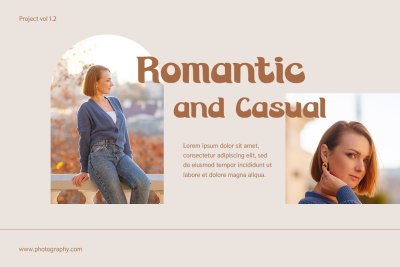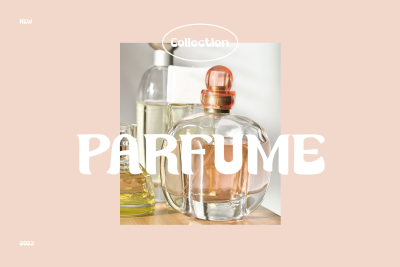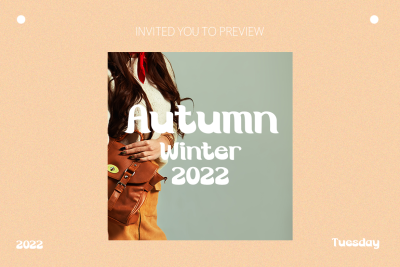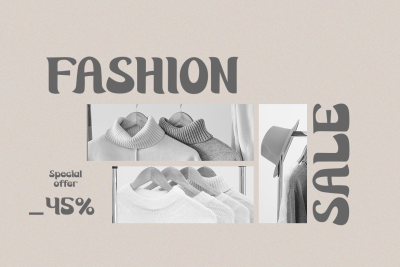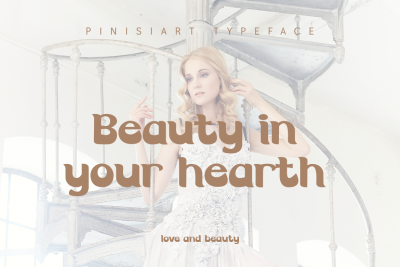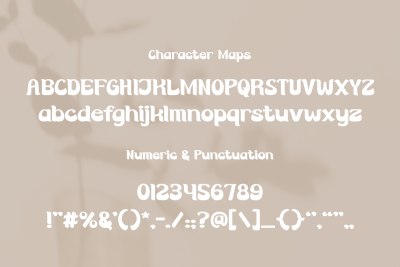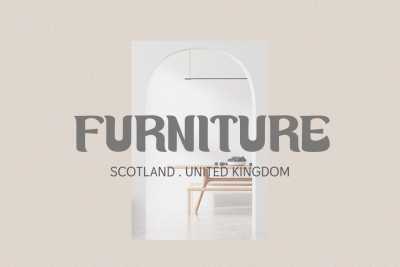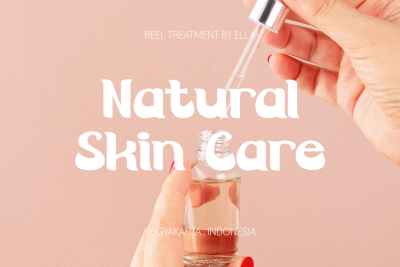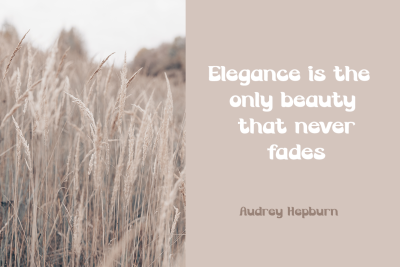
Vintage Font SCARLET is a striking blend of elegance and nostalgia that gives every design a bold, polished look. Designed with inspiration from retro aesthetics and infused with a modern twist, this font effortlessly captures attention. The unique curvature of each letterform exudes charm, while its confident strokes convey a sense of luxury and sophistication. In other words, SCARLET isnโt just a fontโitโs a statement.
Thanks to its smooth balance between playful and refined, SCARLET brings versatility to your creative toolkit. Whether you’re designing logos, packaging, posters, invitations, or digital content, this font ensures your message stands out. Additionally, its sleek character shapes are highly legible, even at smaller sizes, which adds to its functionality across various platforms.
Moreover, SCARLET has been thoughtfully crafted to add a timeless flair to both modern and vintage-inspired designs. Its graceful details and bold presence allow it to adapt seamlessly to projects that aim for a premium, high-end look. The font feels right at home in beauty product branding, fashion campaigns, wellness packaging, or even social media promotions. Because of this, SCARLET becomes a go-to choice for designers aiming to infuse elegance and uniqueness into their visuals.
Vintage Font SCARLETย Perfect For:
SCARLET is perfect for graphic designers, brand strategists, marketing professionals, small business owners, and creatives who want their visuals to radiate class and creativity. It works wonderfully in industries like beauty, fashion, wellness, home dรฉcor, and editorial publishing. If youโre building a brand identity that needs to feel refined, expressive, and trend-forward, SCARLET is a flawless fit.